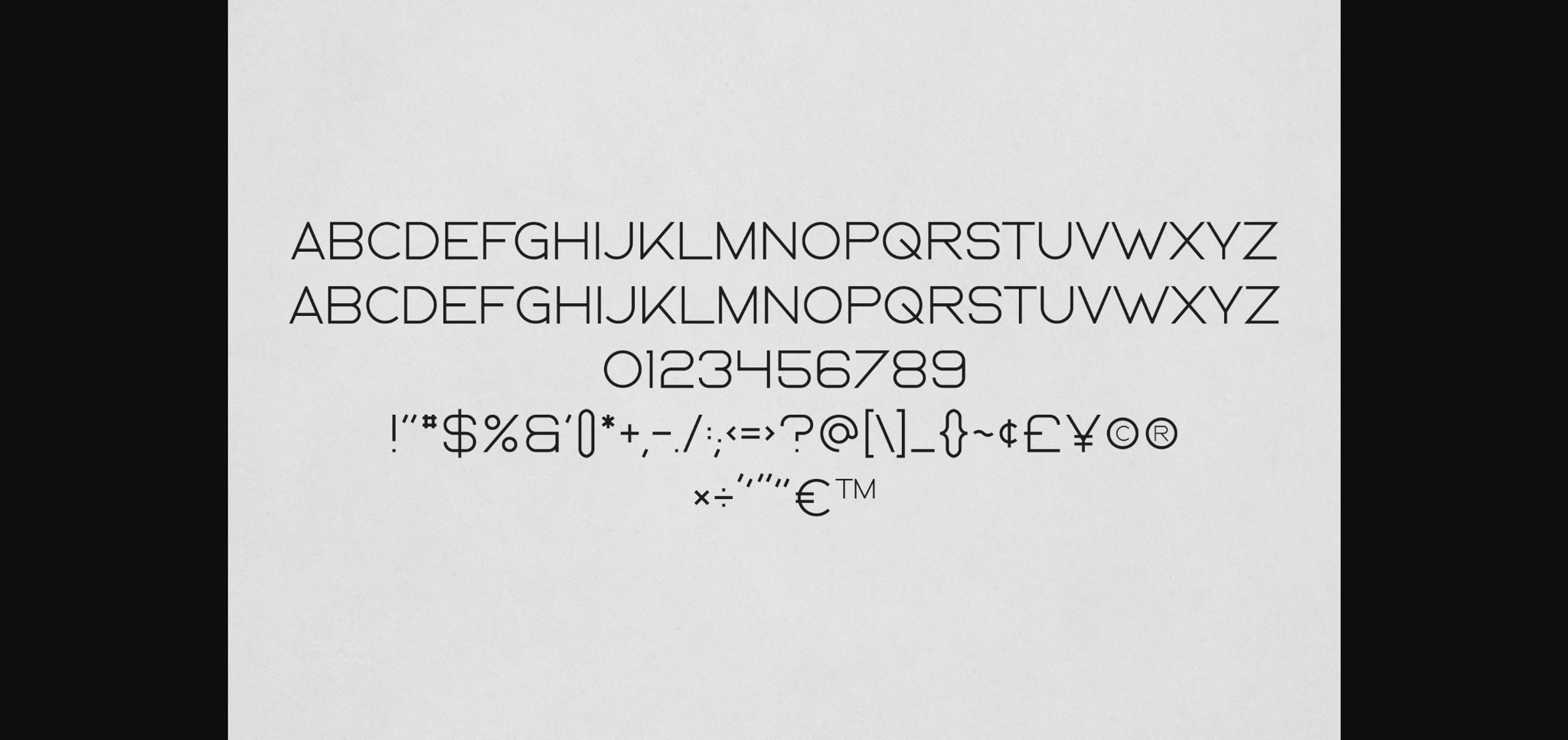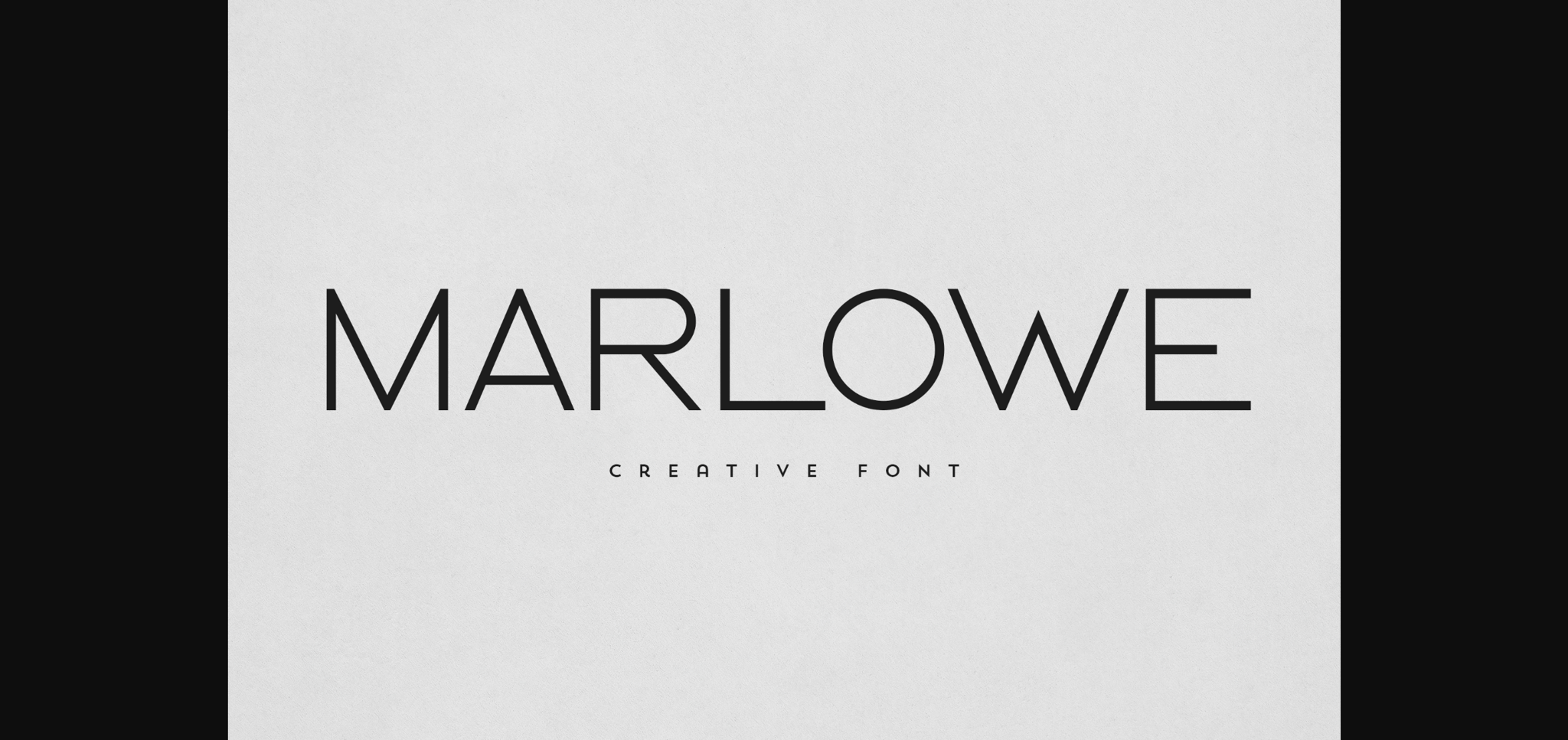
About Marlowe Font
Marlowe is an elegant and versatile sans serif font that will make your typography truly unique! It will enchant every logo, branding, headline, or plain text!